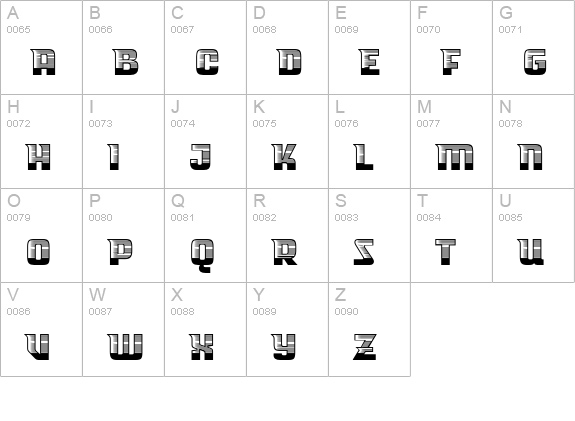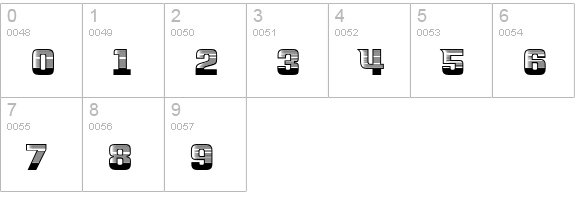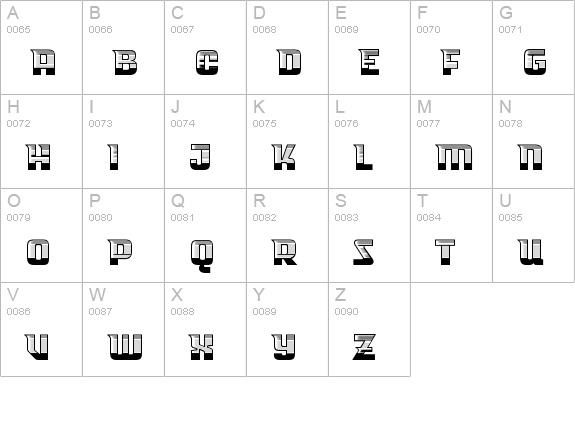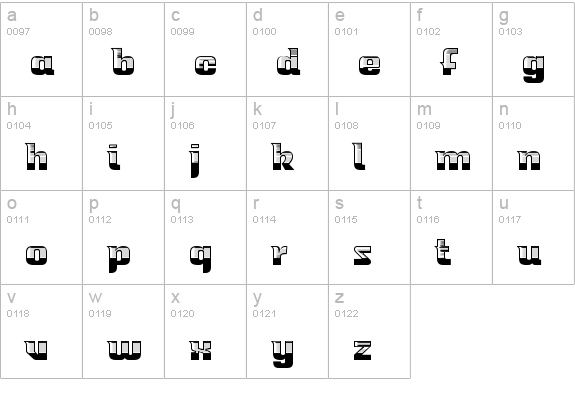
Spacelord Three is a futuristic and bold display font that will transport you to another dimension with its sleek and cutting-edge design. This font features sharp angles and geometric shapes that exude a sense of power and modernity. Whether you are working on a sci-fi project, branding, or just want to add a touch of the cosmos to your designs, Spacelord Three is the perfect choice. The best part? Spacelord Three is available for free download at FontsMarket.com! This means you can elevate your design game without breaking the bank. Embrace the future and let Spacelord Three take your projects to new heights. Download it now and watch your creations soar into the universe of creativity.